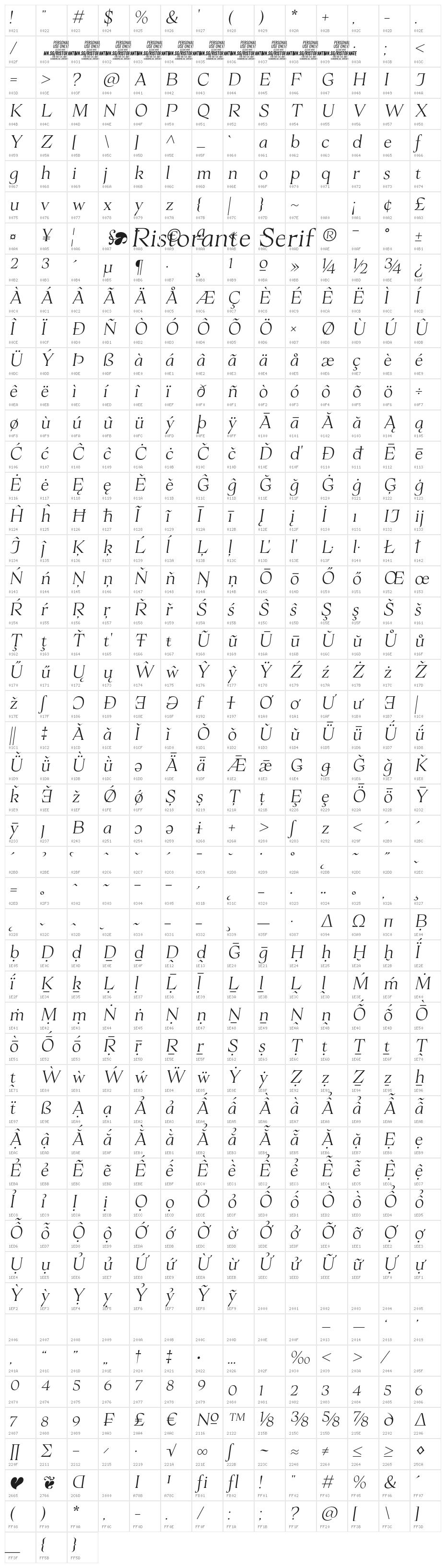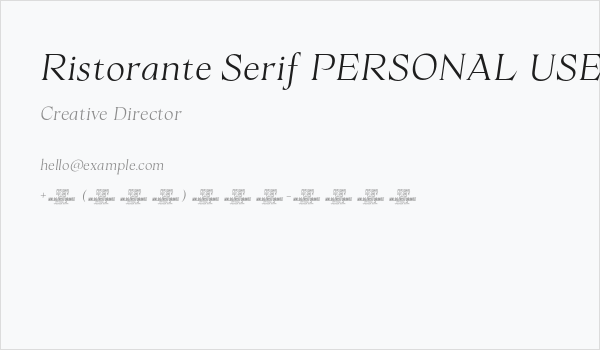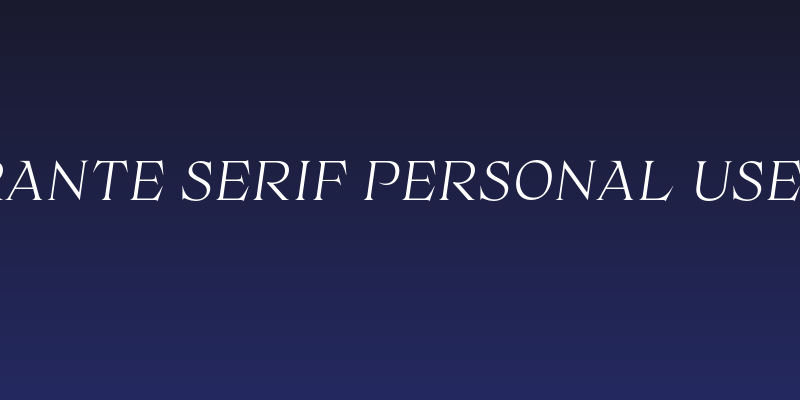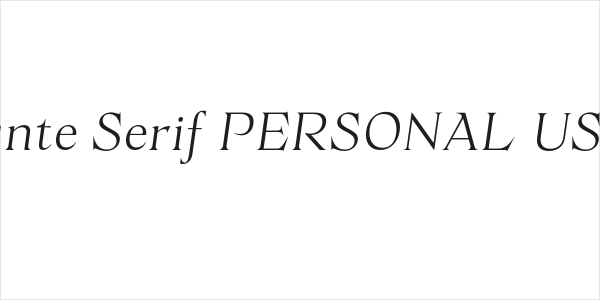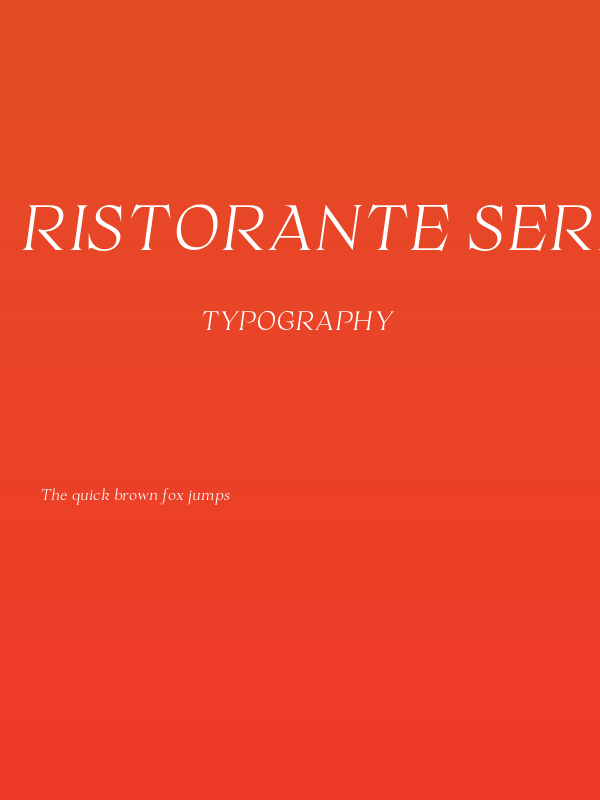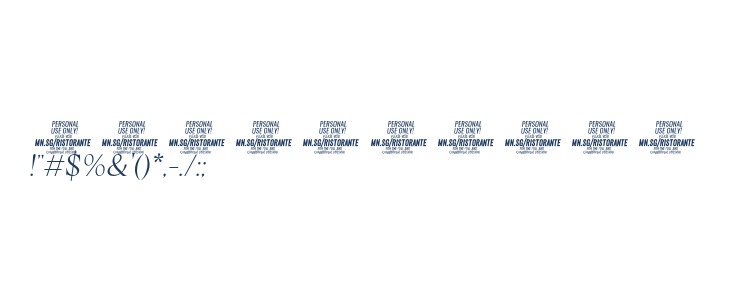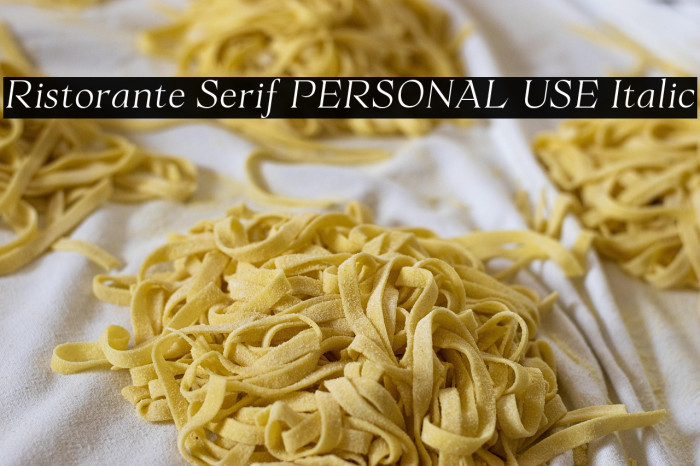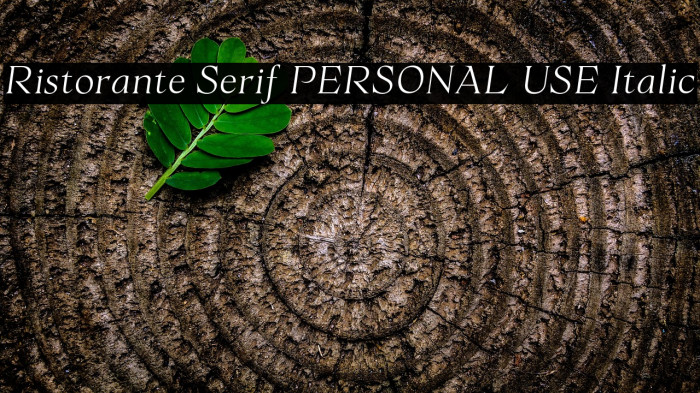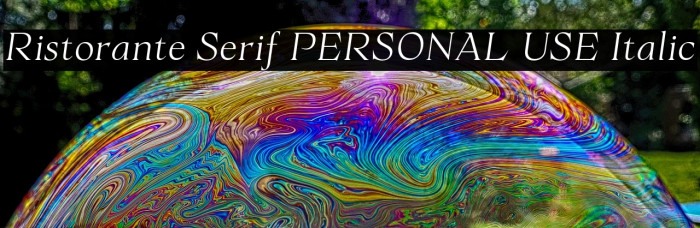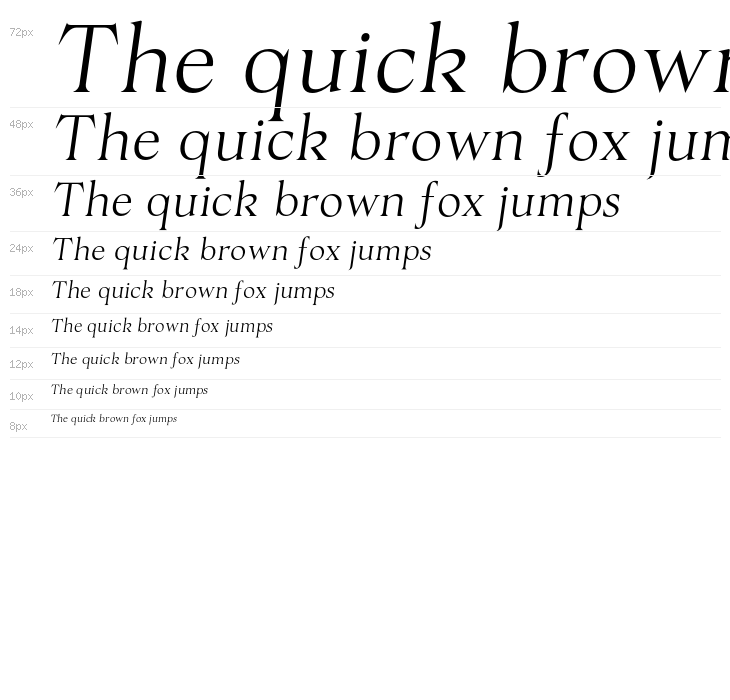
Ristorante Serif PERSONAL USE Italic Font
Ristorante Serif PERSONAL USE Italic Description
This elegant serif font features a classic and sophisticated design with a slight italic slant, giving it a refined and graceful appearance. The characters are well-proportioned, with a moderate contrast between thick and thin strokes that adds to its readability and charm. The uppercase letters are stately and commanding, while the lowercase letters maintain a smooth and flowing form. The numerals and special characters are designed to complement the overall style, making it versatile for various uses. The font's timeless appeal makes it suitable for projects that require a touch of elegance and tradition.
| Proposed Projects | Ideal for wedding invitations, luxury branding, editorial design, and formal event programs. |